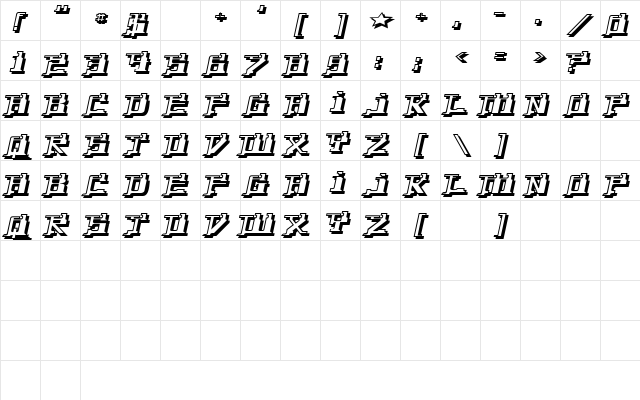
Yytrium Dioxide Regular Free Font
Yytrium Dioxide Regular
Design Context for Yytrium Dioxide
Yytrium Dioxide is a composed and adaptable typeface that performs quietly and consistently across a wide range of design contexts.